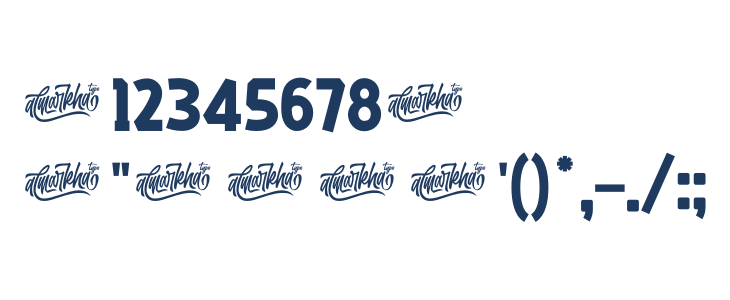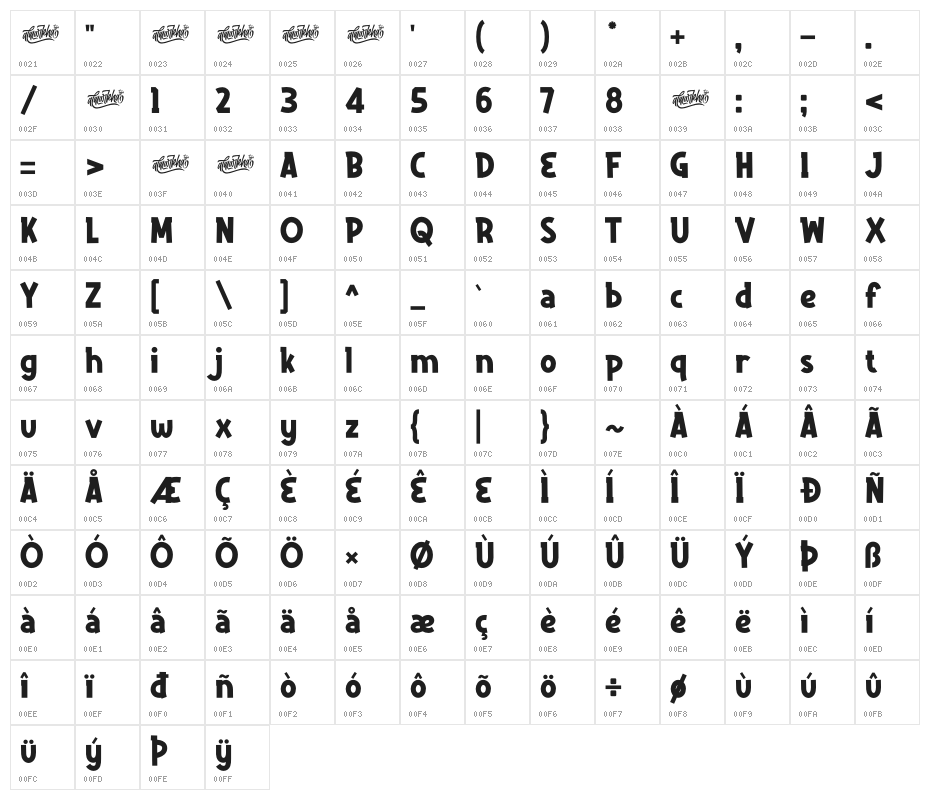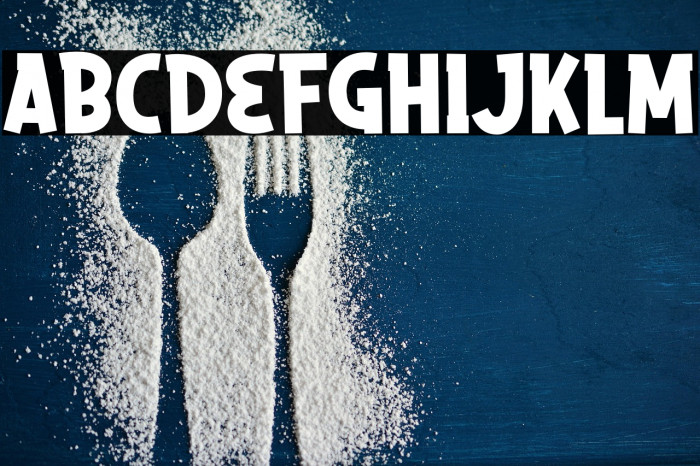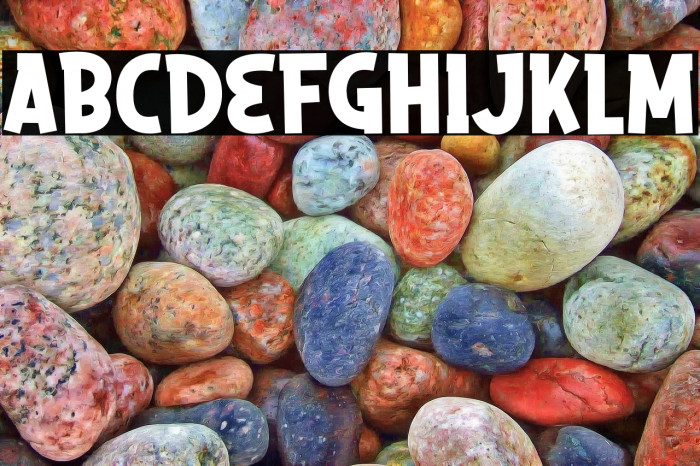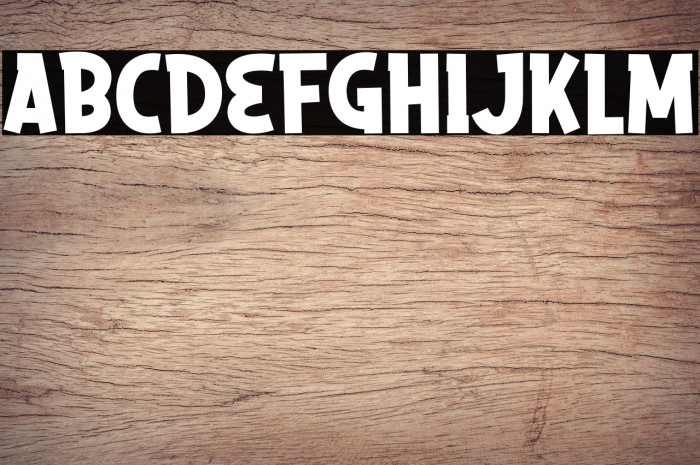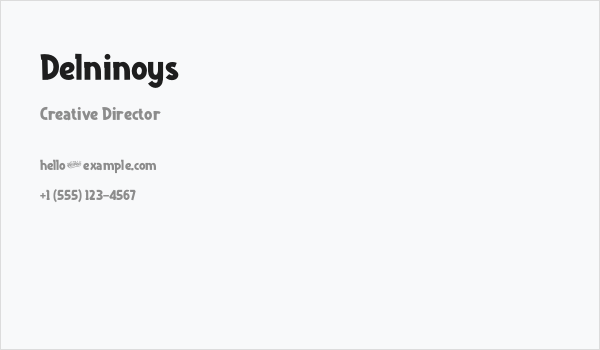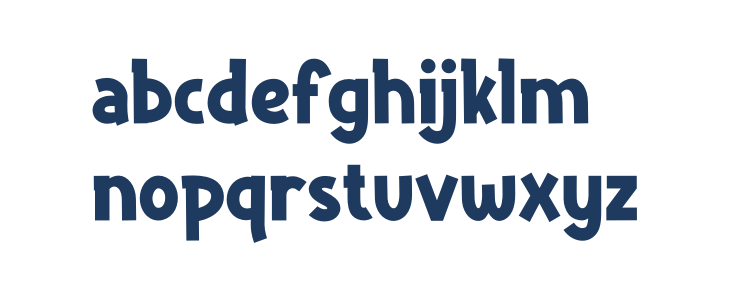
Delninoys Font
Delninoys Description
This font features a bold and playful design with a strong presence. The uppercase letters are robust and slightly condensed, giving a sense of stability and strength. The lowercase letters maintain a consistent style, with rounded edges that add a friendly and approachable feel. The numbers are clear and bold, ensuring readability. Special characters are designed with the same playful and bold characteristics, making them stand out. The overall style is modern with a touch of whimsy, suitable for a variety of creative projects.
| Overall Style | Modern, Playful |
| Proposed Projects | Ideal for children's books, playful branding, posters, and social media graphics. |